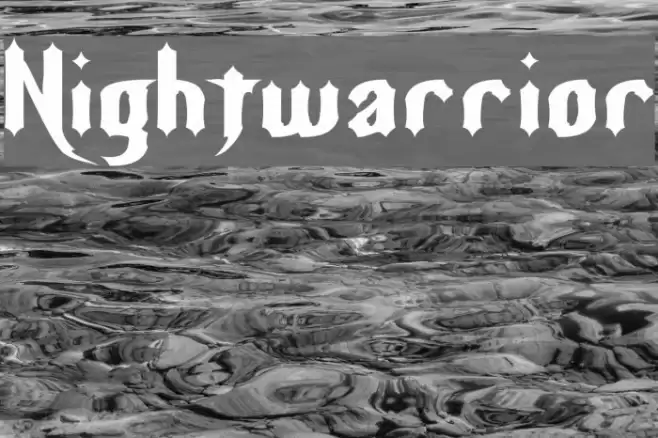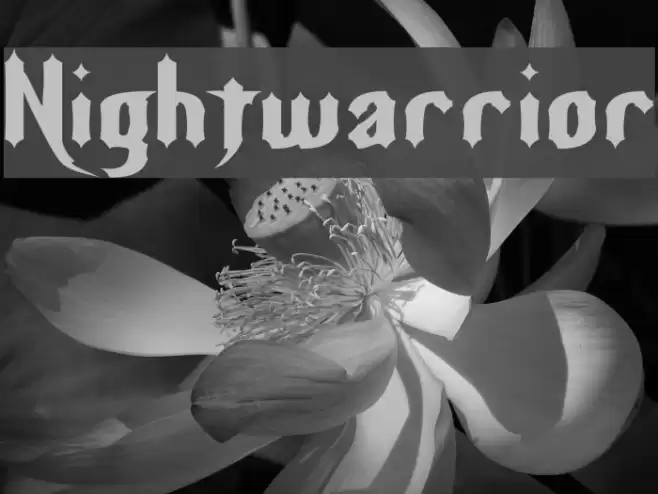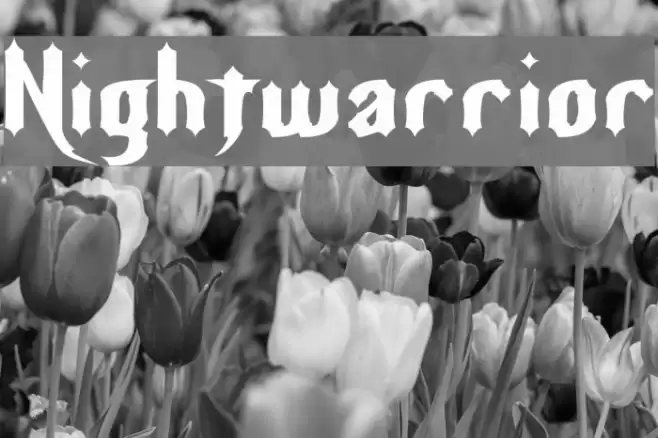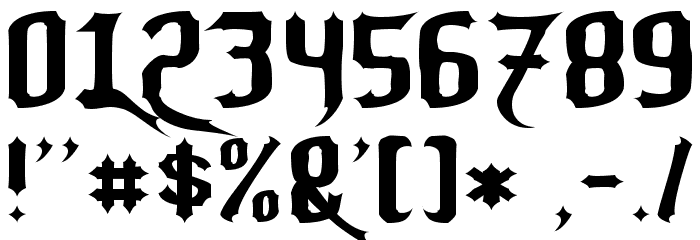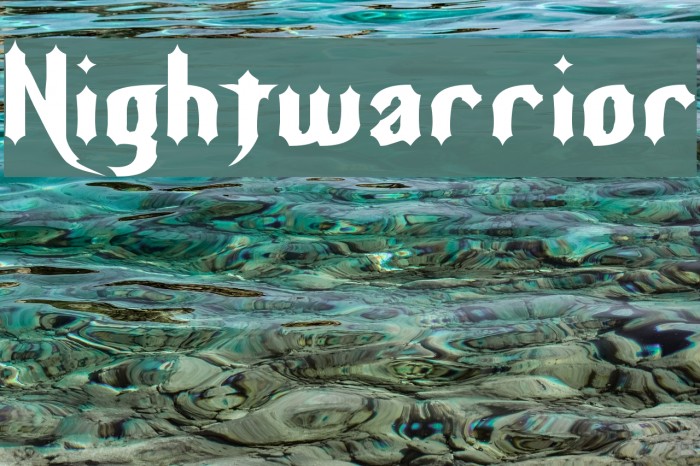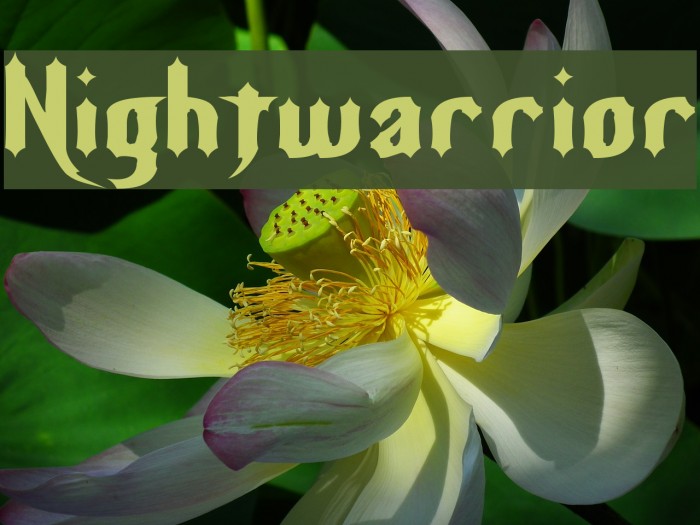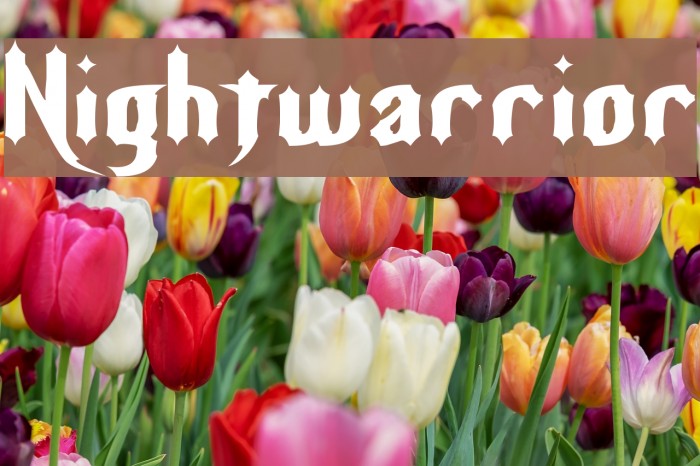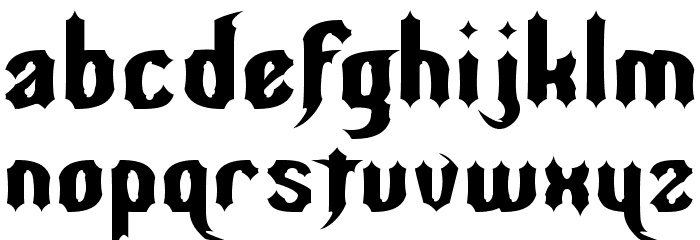
Nightwarrior Font
Nightwarrior Description
This font features a bold and aggressive style with sharp, angular edges and a gothic influence. The uppercase and lowercase letters exhibit a strong presence, with pointed serifs and dramatic curves that give it a fierce and dynamic appearance. The numerals and special characters maintain this bold aesthetic, ensuring consistency across all glyphs. The font's design is reminiscent of medieval or fantasy themes, making it ideal for projects that require a dramatic and impactful visual statement.
A bold, gothic-inspired font with sharp, angular edges and dramatic curves from Uncategorized fonts.
- Proposed Projects: Perfect for fantasy-themed posters, video game titles, heavy metal band logos, and any project needing a bold, dramatic typeface.
- Overall Style: Gothic, Dramatic